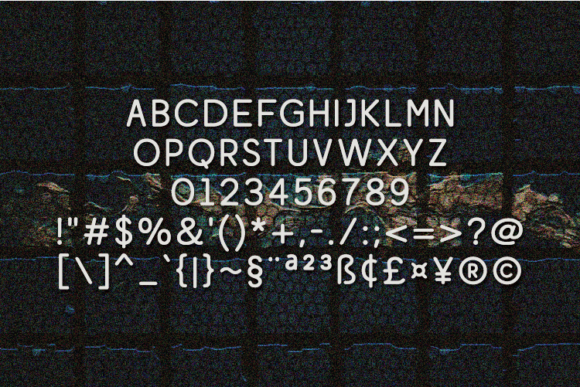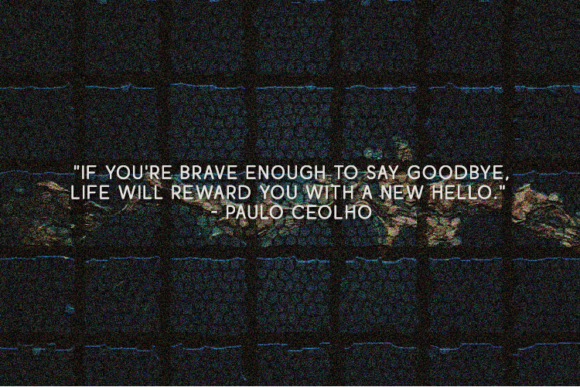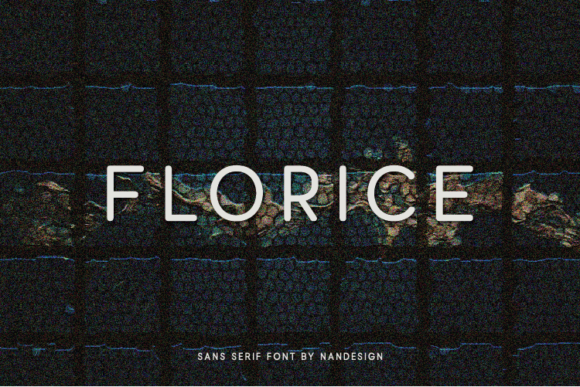
Introducing Florice Font: Elevate Your Designs with a Neat and Clean Sans Serif
Are you on the hunt for a font that can add a touch of elegance and sophistication to your designs? Look no further than Florice Font! This stunning sans serif font is designed to complement every project you’re working on, making it the perfect addition to your typography collection.
What is Florice Font?
Florice Font is a beautifully crafted lettered sans serif font that exudes a sense of neatness and cleanliness. Its sleek lines, balanced proportions, and carefully considered letterforms make it an excellent choice for a wide range of design applications.
Key Features of Florice Font
- Neat and Clean Design: Florice Font boasts a crisp, clean design that’s perfect for creating stunning headings, logos, and invitations.
- Sans Serif Style: The font’s sans serif style gives it a modern and minimalist feel that’s ideal for designs that require a touch of sophistication.
- Highly Versatile: Florice Font can be used for a wide range of projects, from branding and logos to invitations, posters, and more.
- Easily Readable: The font’s clear and balanced letterforms ensure that your text is easily readable, even at smaller sizes.
Use Cases for Florice Font
Florice Font is an incredibly versatile font that can be used in a variety of design applications. Here are some ideas to get you started:
- Headings and Titles: Use Florice Font to create stunning headings and titles that add a touch of elegance to your designs.
- Logos and Branding: The font’s clean and modern design makes it an excellent choice for logos and branding projects.
- Invitations and Stationery: Create beautiful invitations, greeting cards, and stationery with Florice Font.
- Posters and Flyers: Use the font to create eye-catching posters and flyers that grab attention.
Why Choose Florice Font?
With so many fonts available, why should you choose Florice Font for your next project? Here are just a few reasons:
- Unique and Distinctive: Florice Font has a unique and distinctive style that sets it apart from other sans serif fonts.
- Easily Customizable: The font is highly customizable, making it easy to adjust to suit your design needs.
- Time-Saving: With Florice Font, you can create stunning designs in no time, saving you valuable time and effort.
Tips for Using Florice Font
To get the most out of Florice Font, here are a few tips to keep in mind:
- Experiment with Font Sizes: Try out different font sizes to see how Florice Font looks at various scales.
- Play with Color: Experiment with different colors to find the perfect combination for your design.
- Mix and Match: Don’t be afraid to mix and match Florice Font with other fonts to create a unique and interesting design.